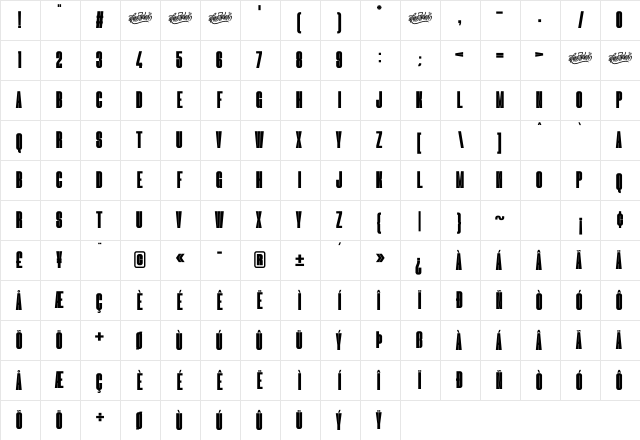
Blackheat Regular
Design Context for Blackheat Typeface
Blackheat offers clean, dependable letterforms without strong stylistic allegiance, making it a practical choice for designers who need flexibility.
Pro Tip: Use Blackheat in both headline and body roles to test its range before committing to a single application.